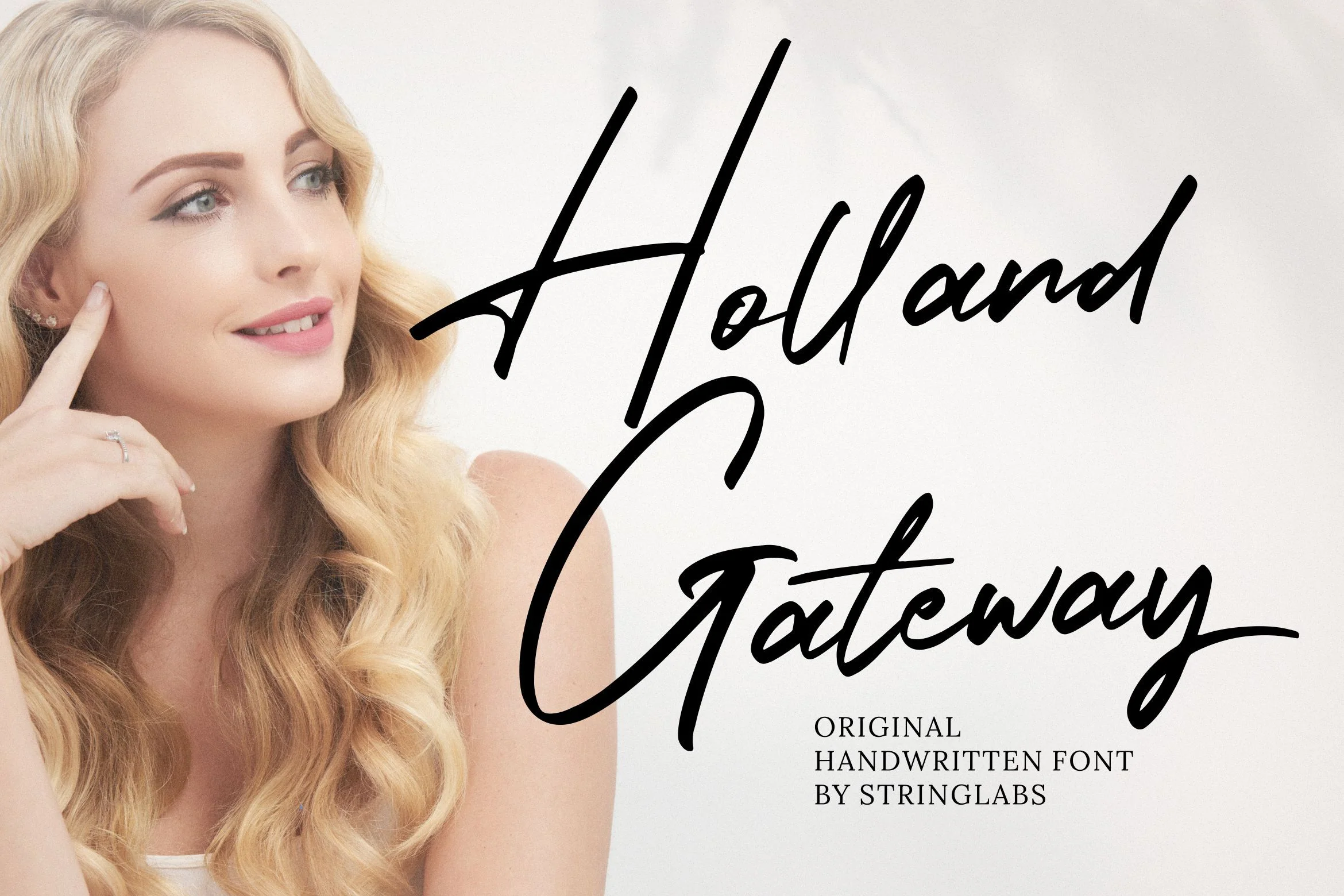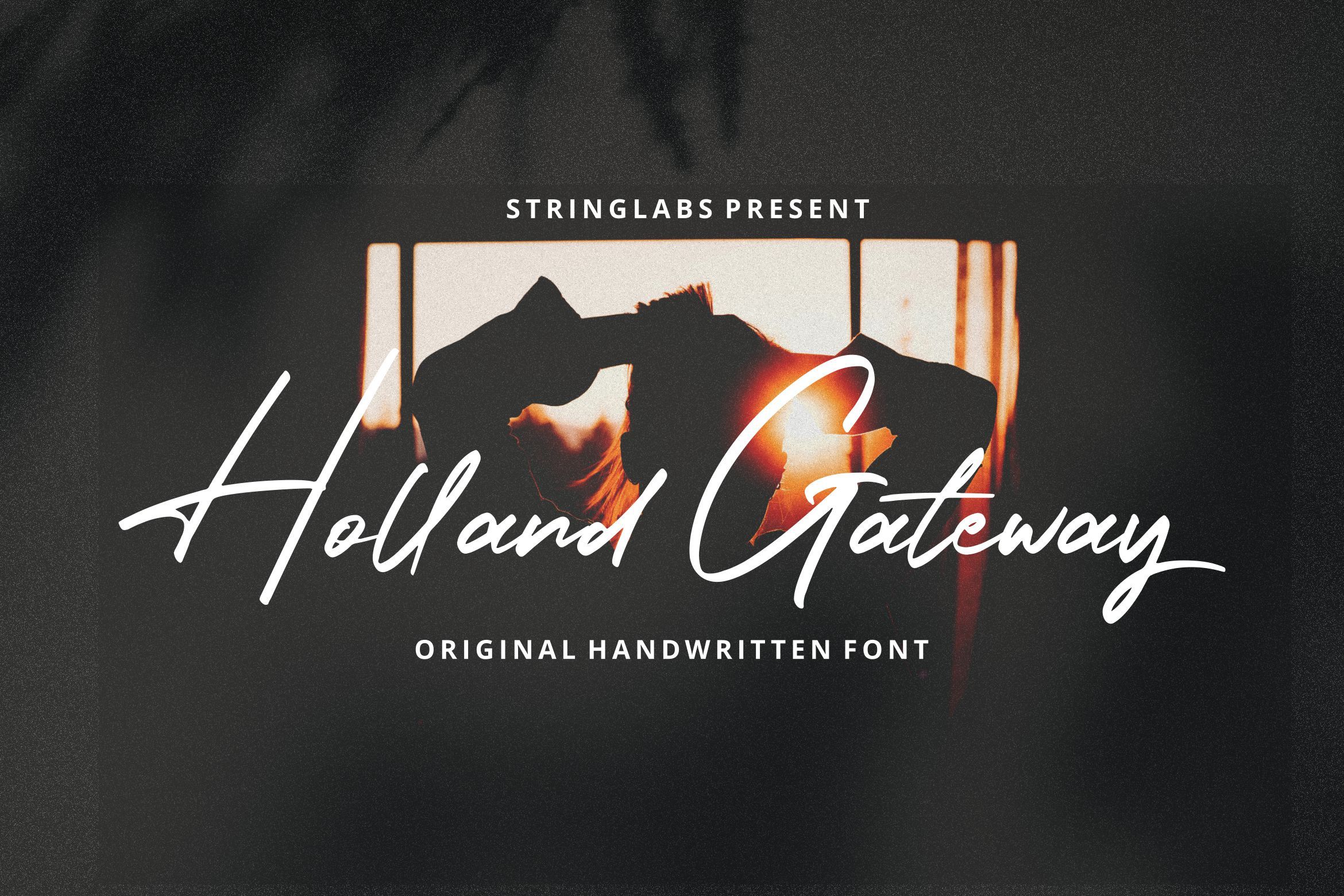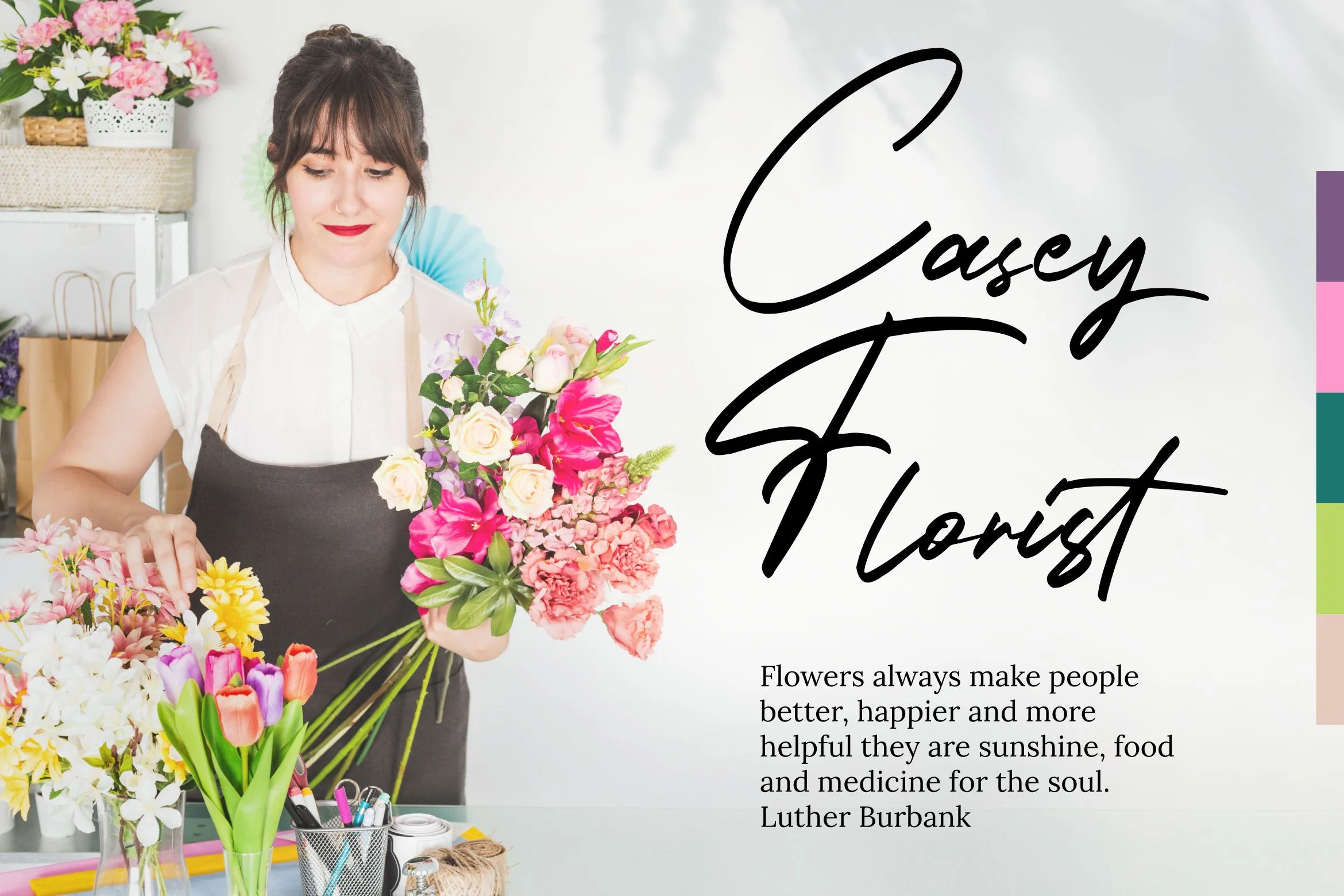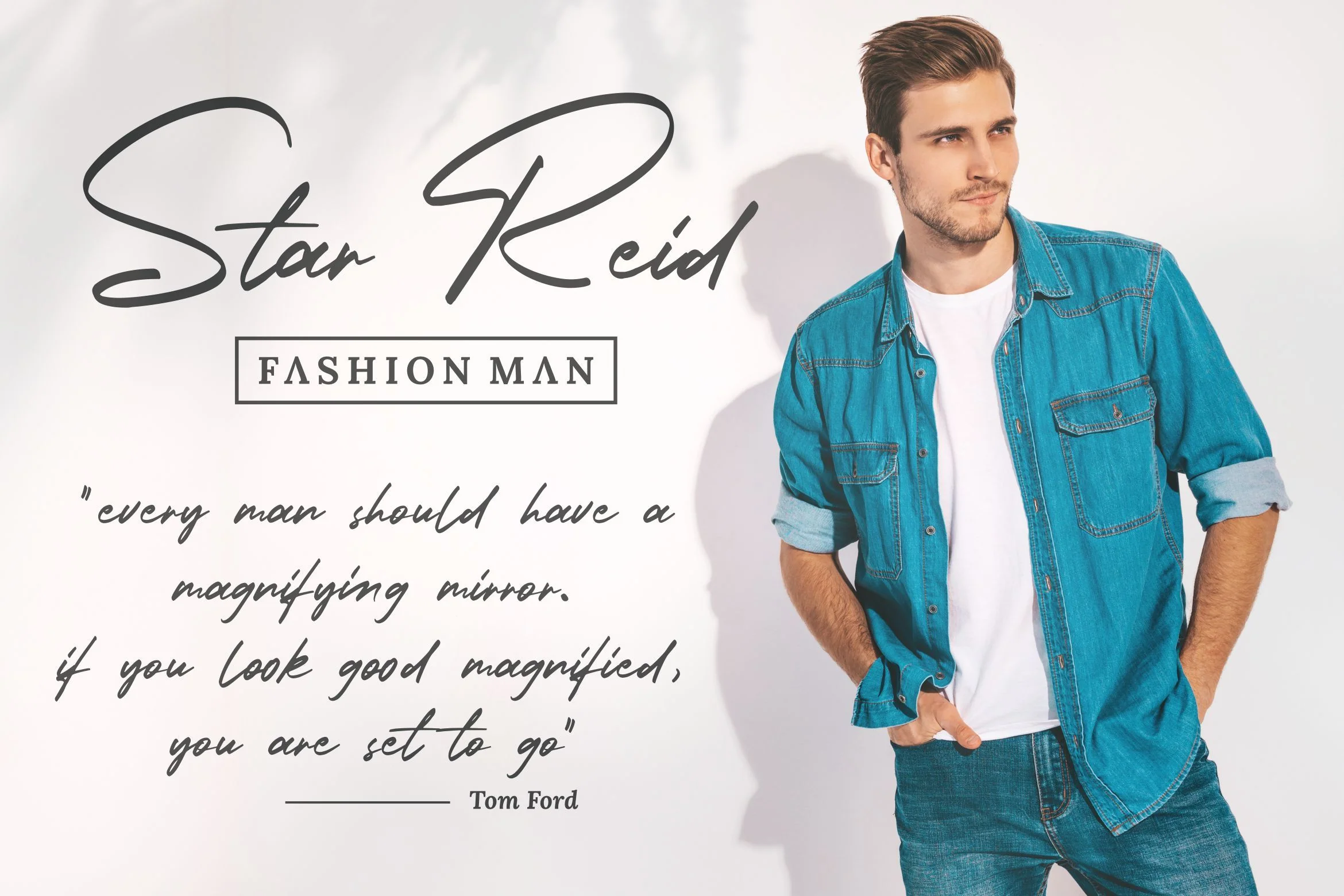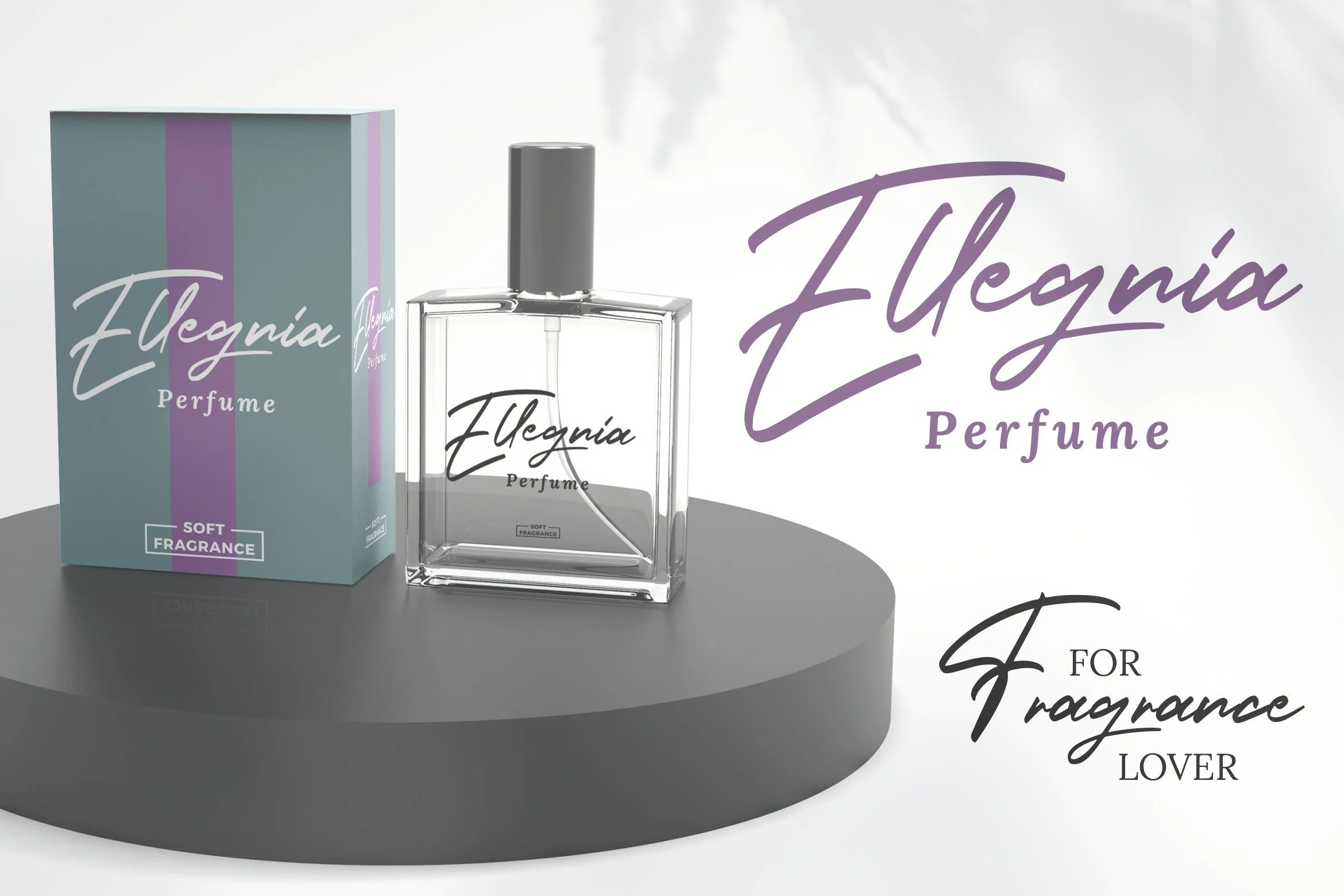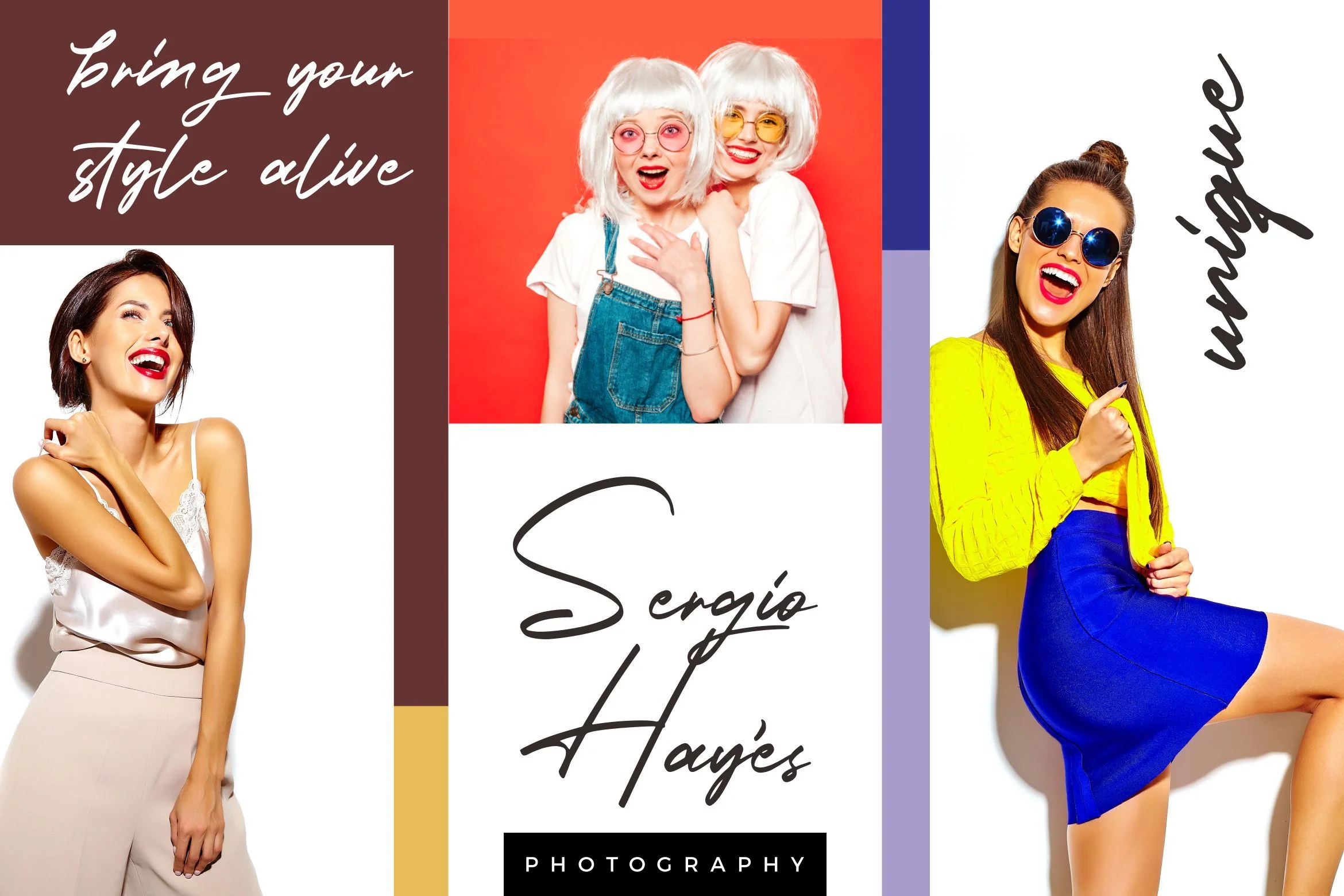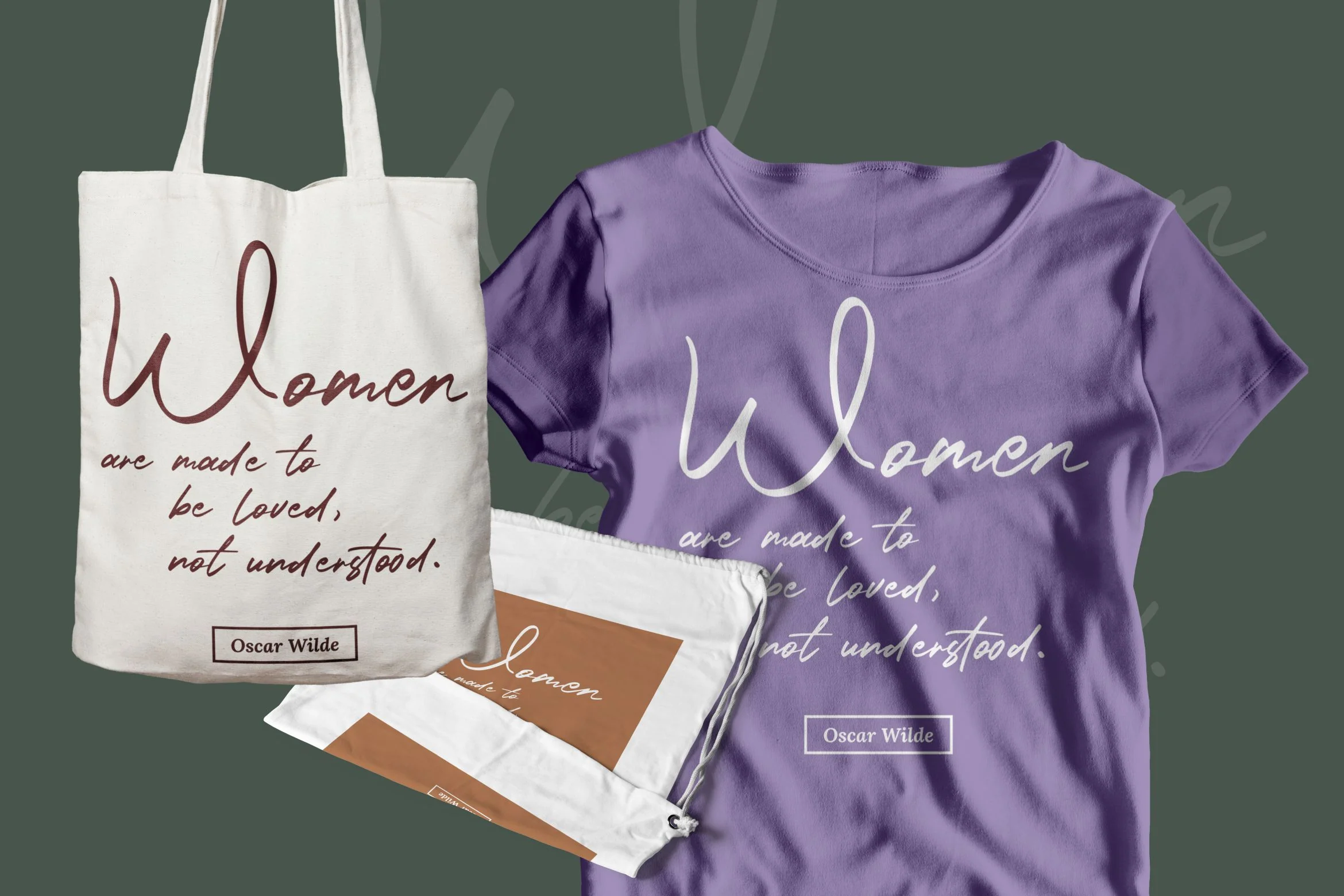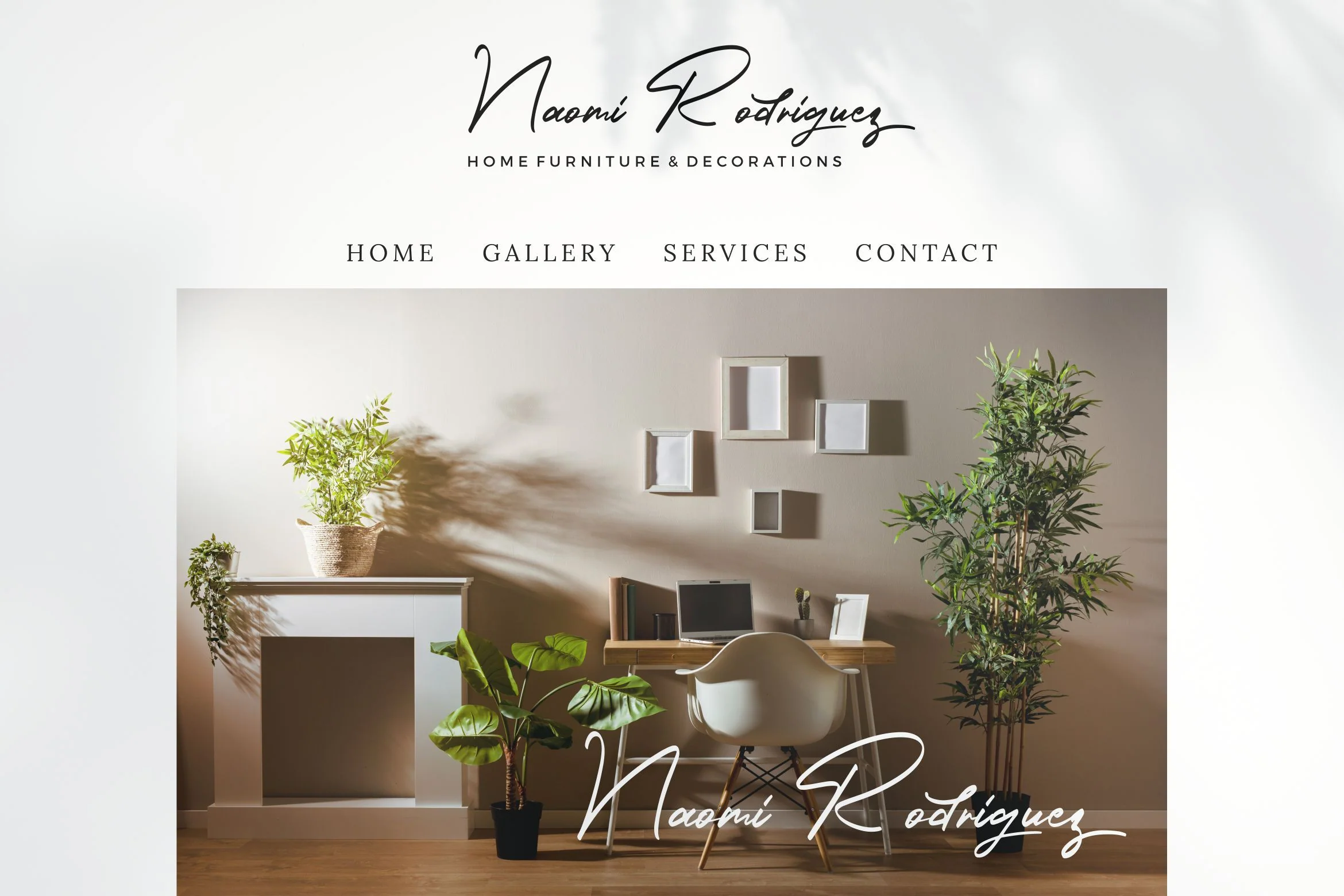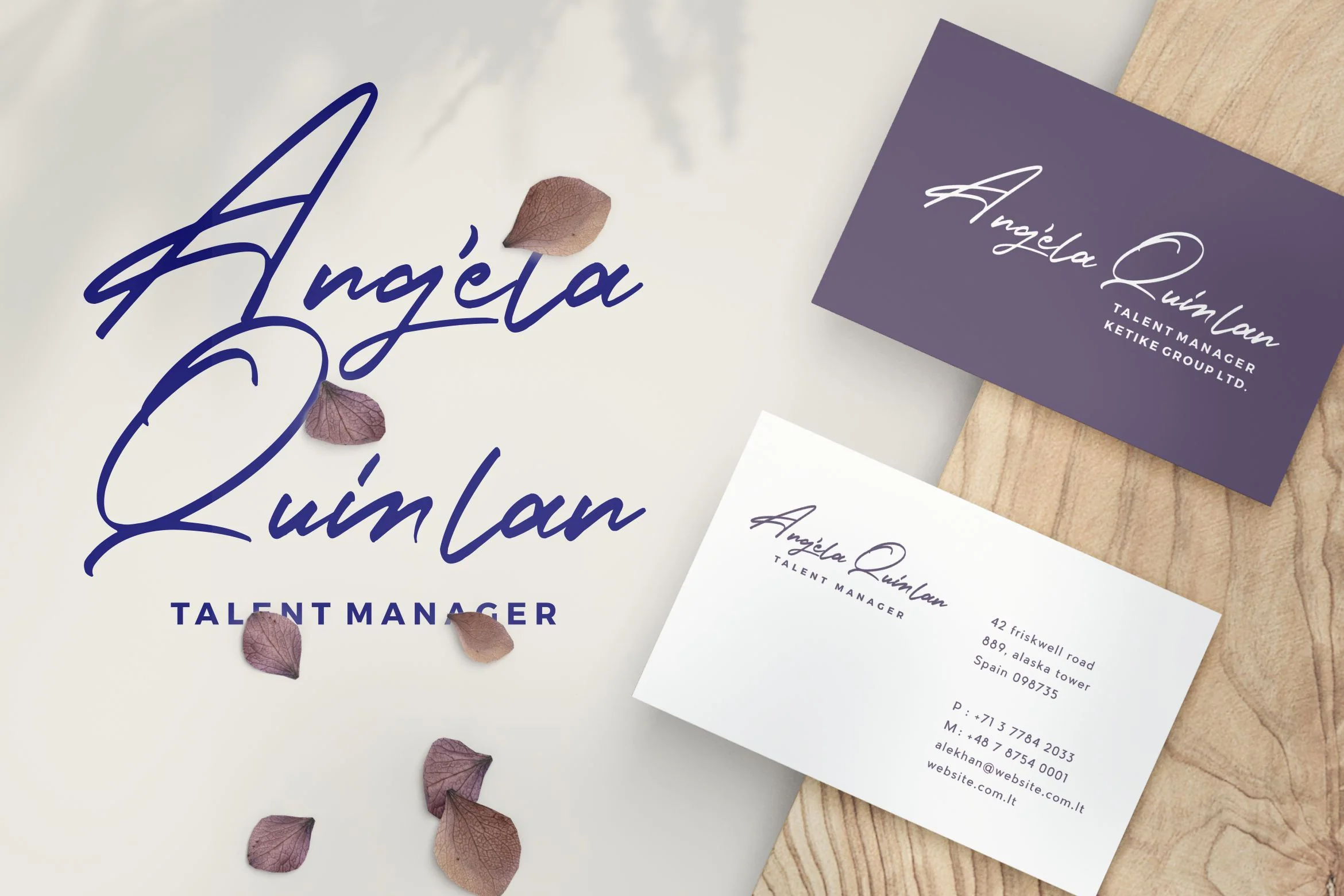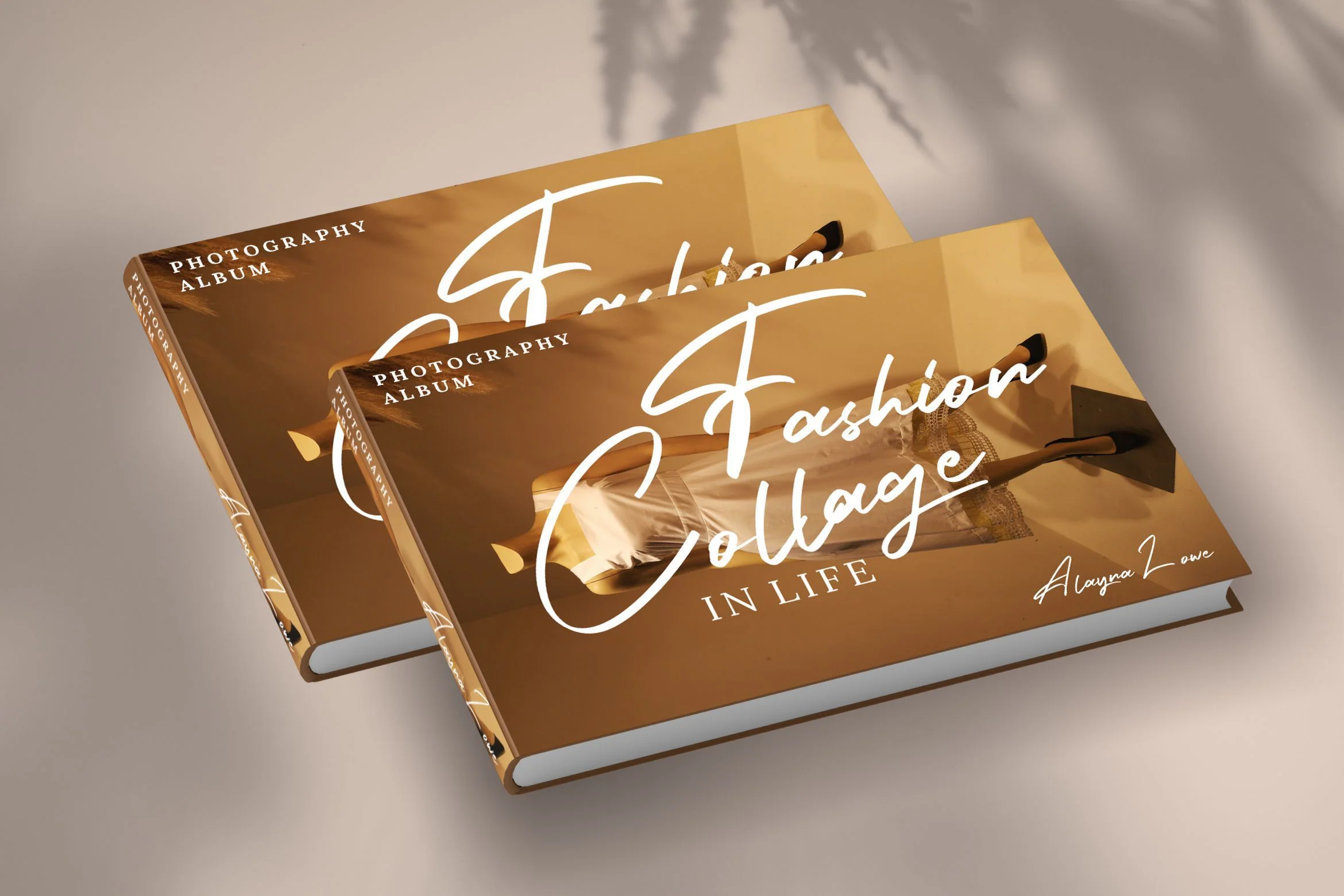
Holland Gateway - Handwritten Script Font
Introducing Holland Gateway - Handwritten Script Font
Holland Gateway is a Modern Script Font with Handwritten Style. The Holland Gateway font was created with authentic handwritting pen. This font is perfect for fashion brand, wedding invitation, business card, logo brand, signature, and then calligraphy.
This Font Template contains Classy, Elegant, Creative, Cool and has a Unique Concept.
Introducing Holland Gateway - Handwritten Script Font
Holland Gateway is a Modern Script Font with Handwritten Style. The Holland Gateway font was created with authentic handwritting pen. This font is perfect for fashion brand, wedding invitation, business card, logo brand, signature, and then calligraphy.
This Font Template contains Classy, Elegant, Creative, Cool and has a Unique Concept.